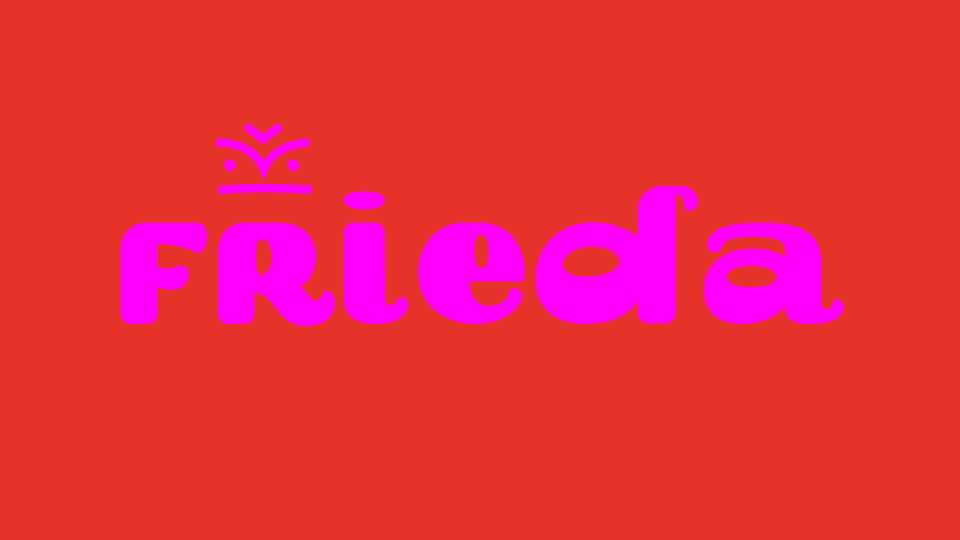
Download Frieda font, a display typeface inspired by the Frieda Kahlo life and work. Frieda font features great straight and curved contrasts and thicknesses, unusual proportions, original shapes and the charm of the rounded ends giving it an imposing and firm robust appearance.